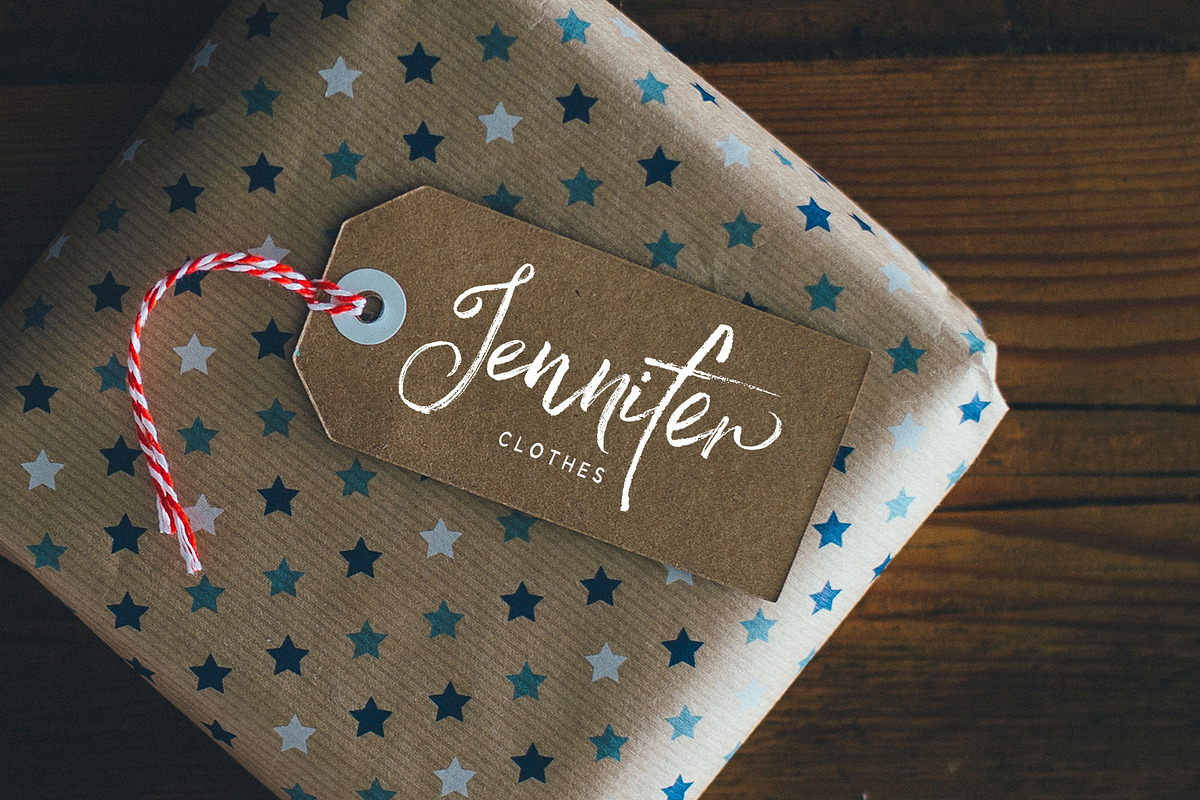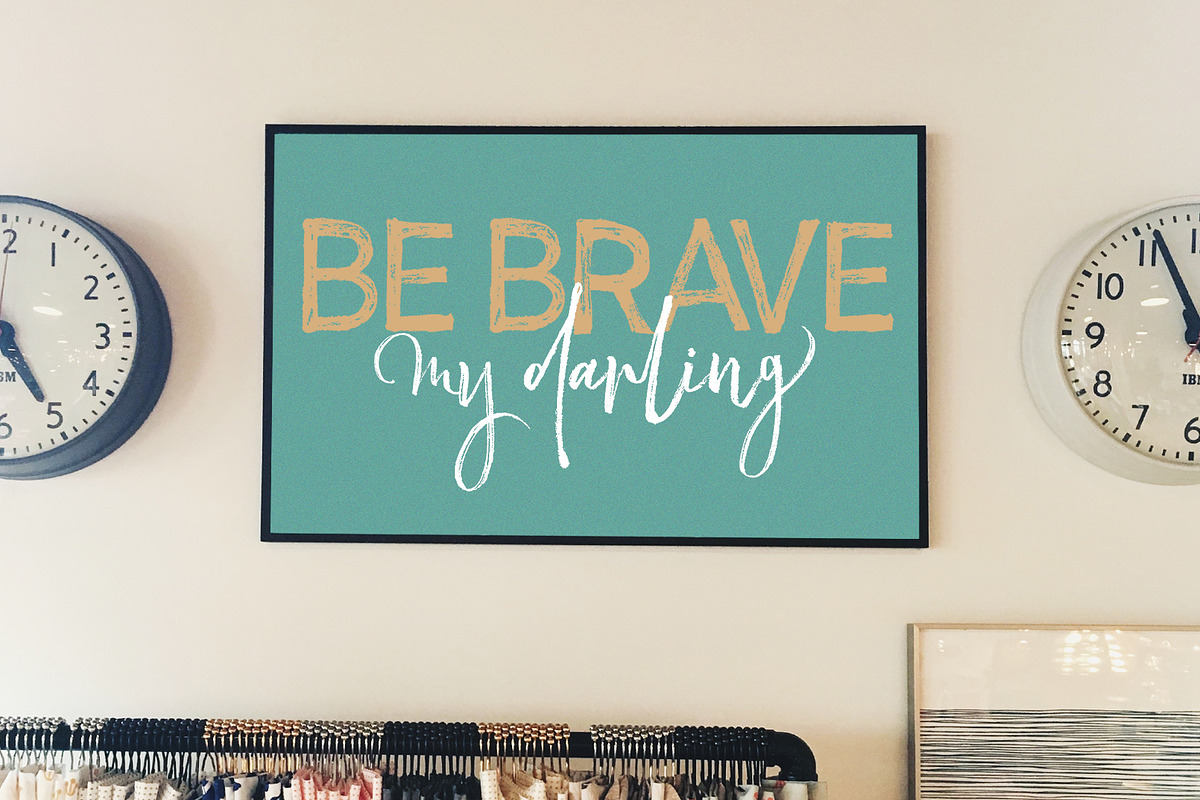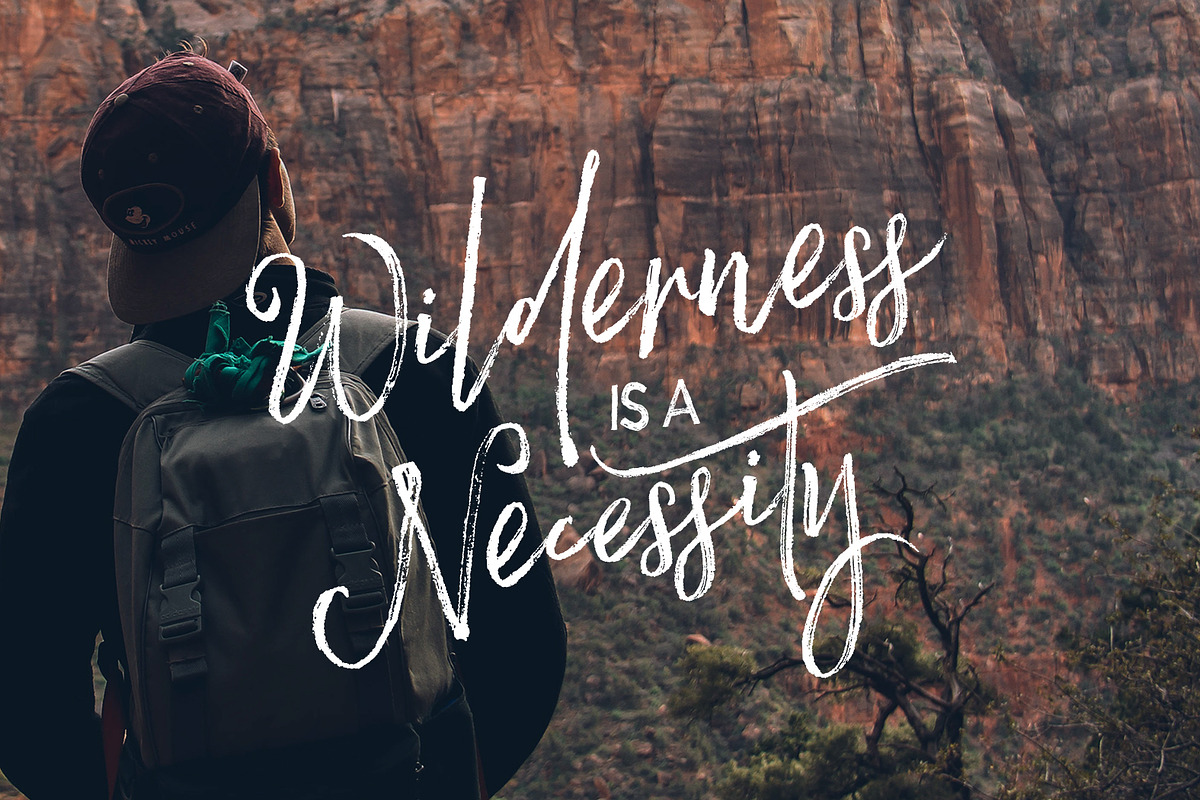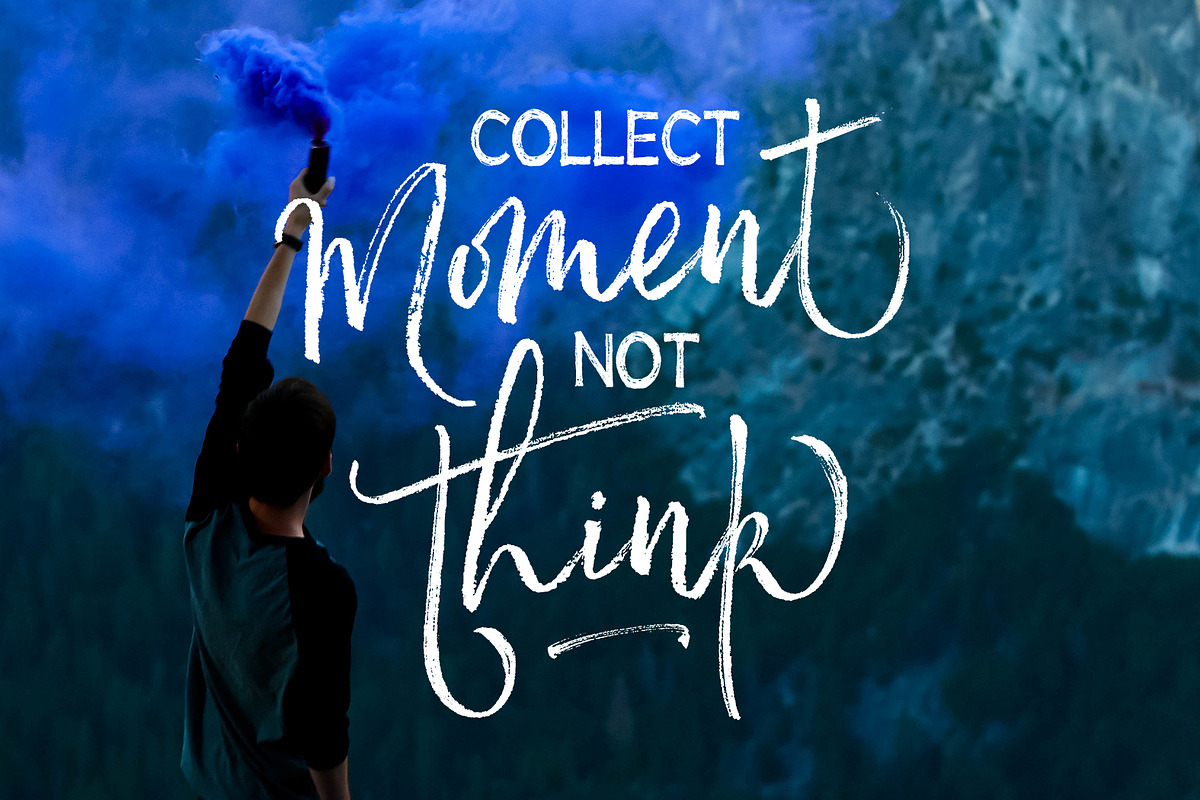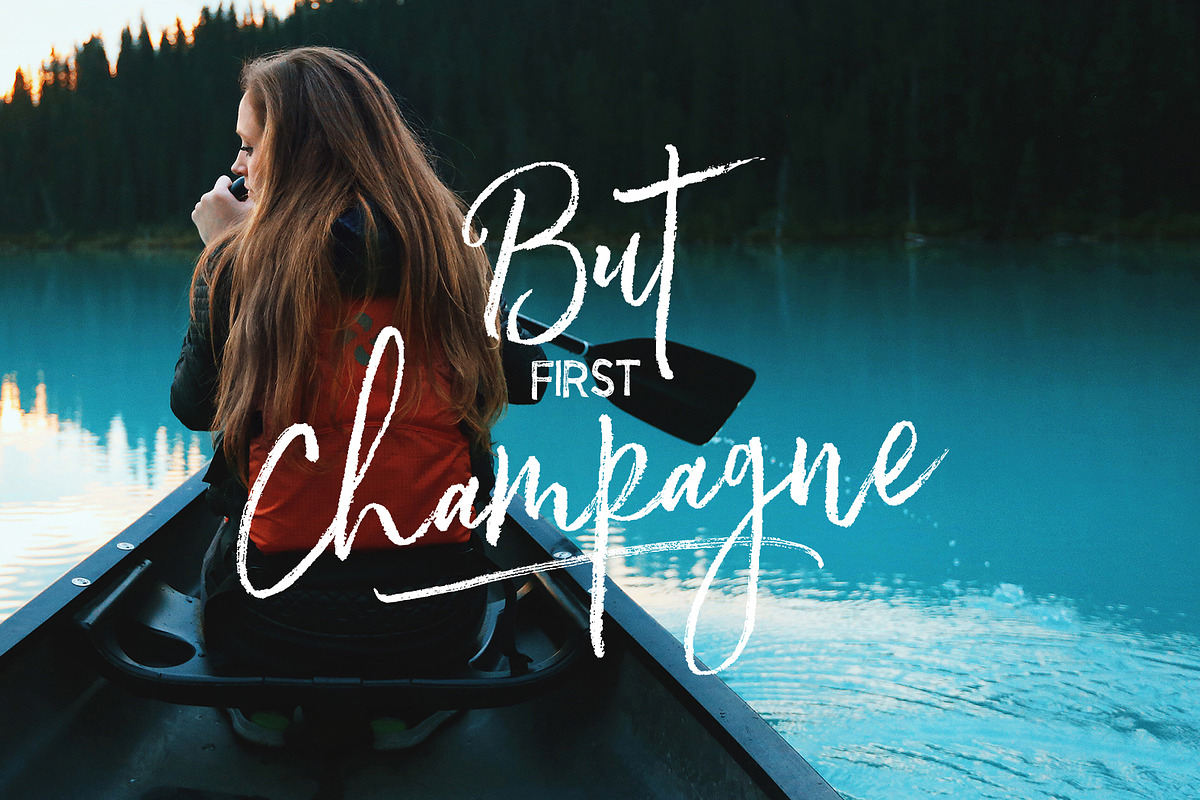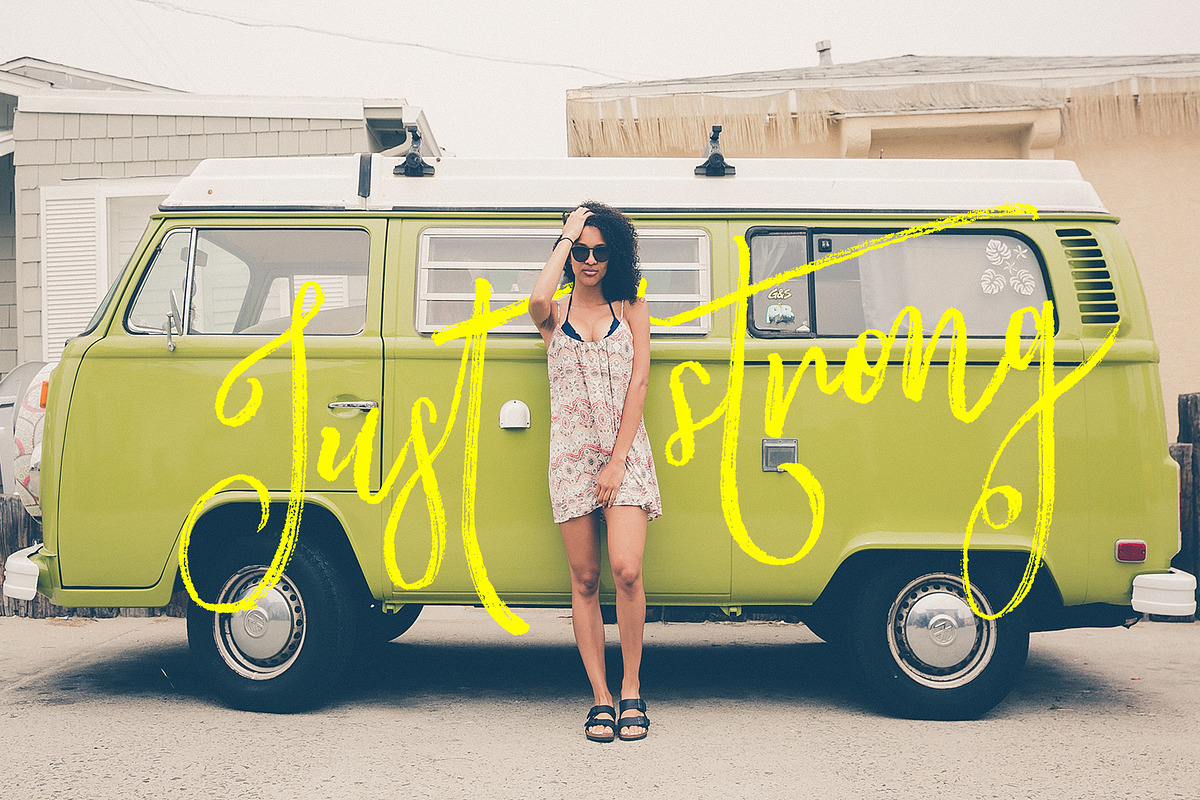
Readmitted Font Duo
Readmitted Font Duo by Dhan Studio is a font selected for branding, posters, packaging, typography.
- Readmitted Script are available ligatures and alternates characters in Open Type Features.
Readmitted Font Duo by Dhan Studio fits naturally into Branding, posters, packaging, typography.